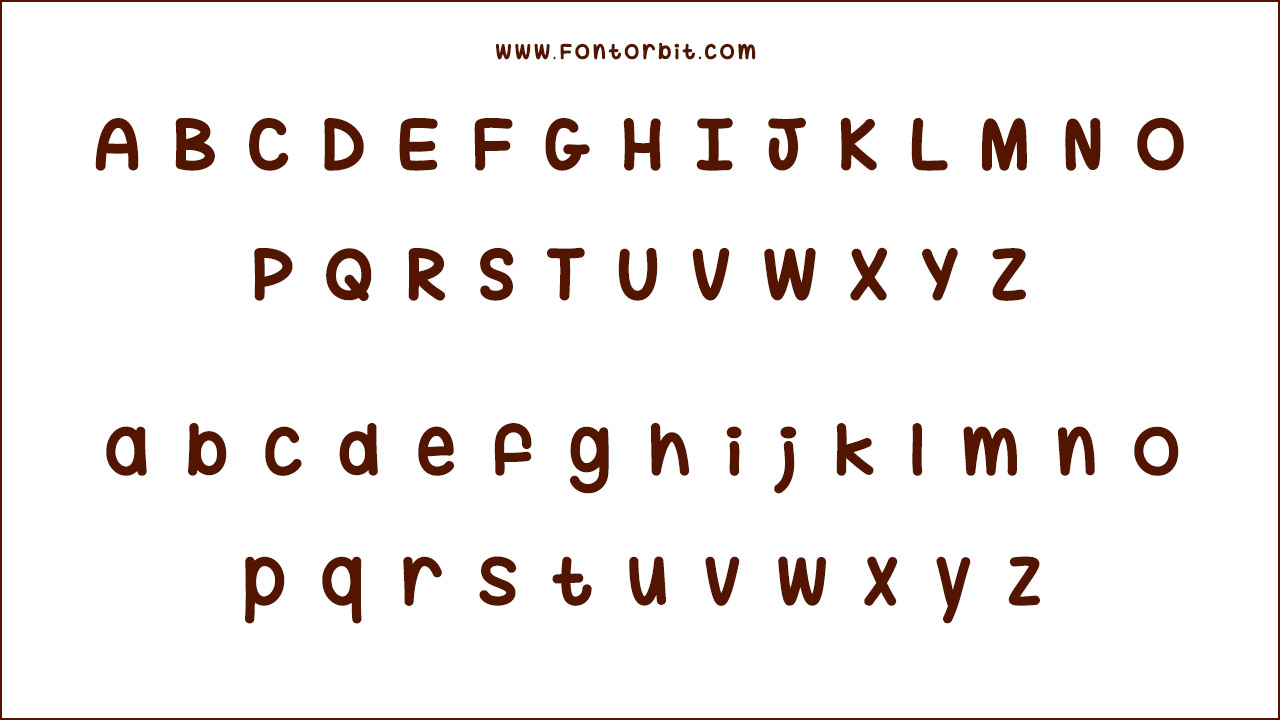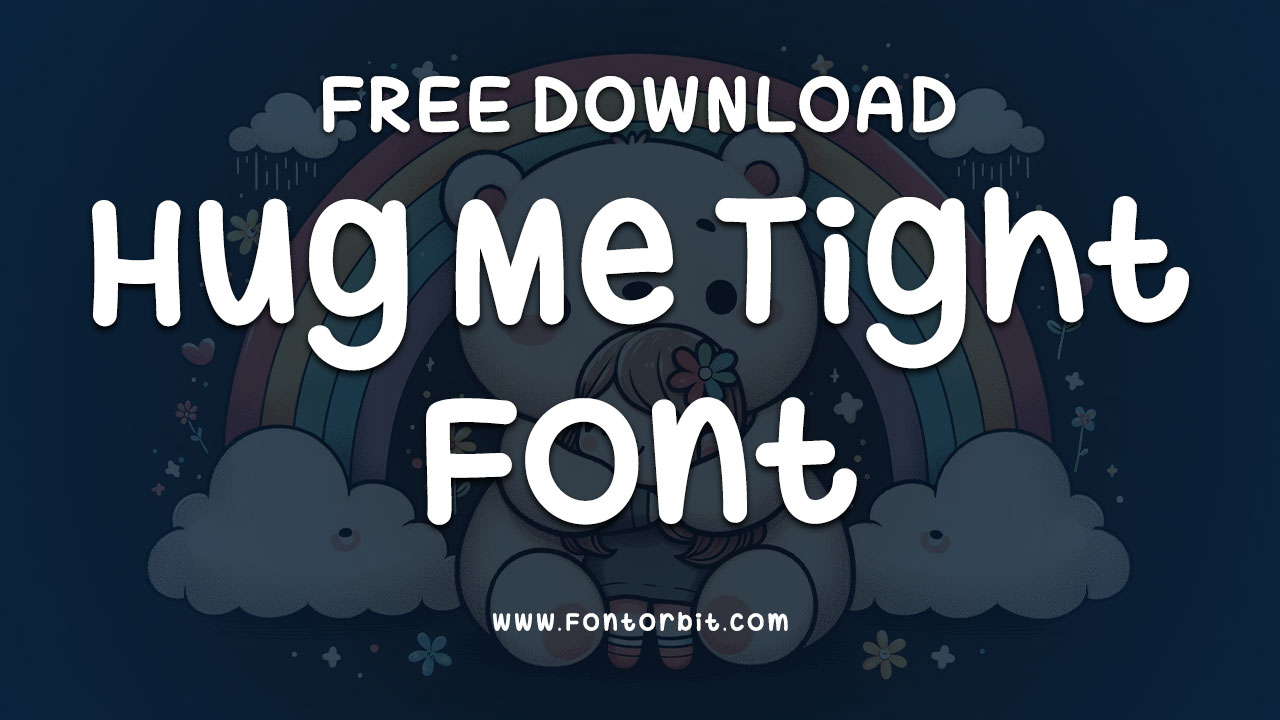
The “Hug Me Tight” font is a whimsical and endearing typeface that adds a touch of charm and warmth to any design. Its playful style is perfect for a wide range of creative projects, from children’s books and greeting cards to fun branding materials and personal crafts.
With its friendly curves and inviting character, “Hug Me Tight” brings a unique, hand-drawn feel to your designs, making them stand out with a cheerful and approachable vibe.
Notable Uses Of Hug Me Tight
The “Hug Me Tight” font is often used in:
- Greeting cards and invitations for its inviting and warm appearance.
- Children’s book covers and illustrations to appeal to younger audiences.
- Fun and playful branding materials to add a unique character.
Consider using “Hug Me Tight” for:
- Personal projects like custom t-shirts or mugs.
- Creative designs for social media graphics.
- Event promotions and flyers that need a friendly touch.
The “Hug Me Tight” font is a delightful choice for any project needing a touch of playfulness and warmth. With its various styles and unique character, it can bring an inviting and charming quality to your designs. Explore this font and see how it can enhance your creative projects.